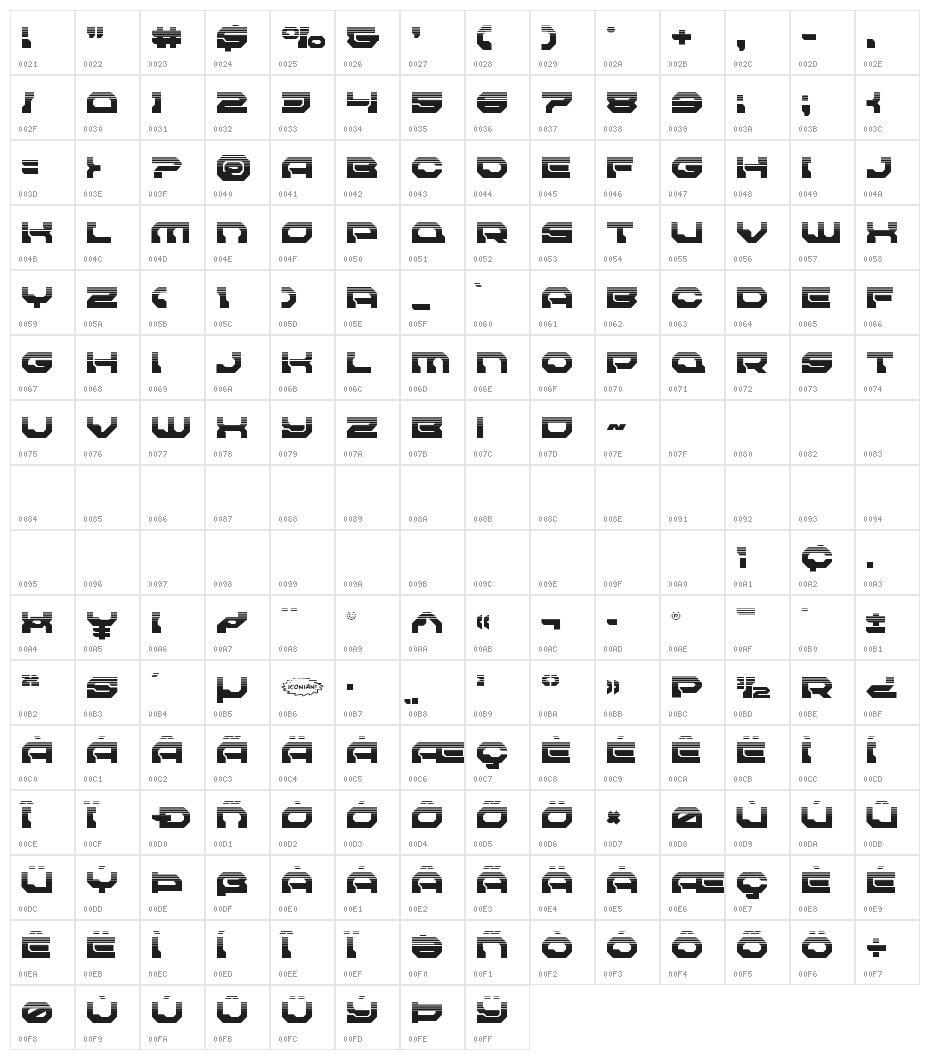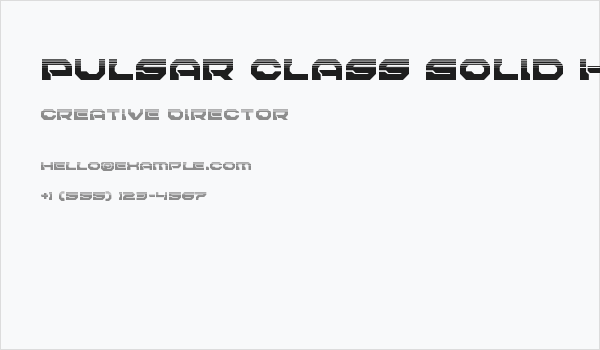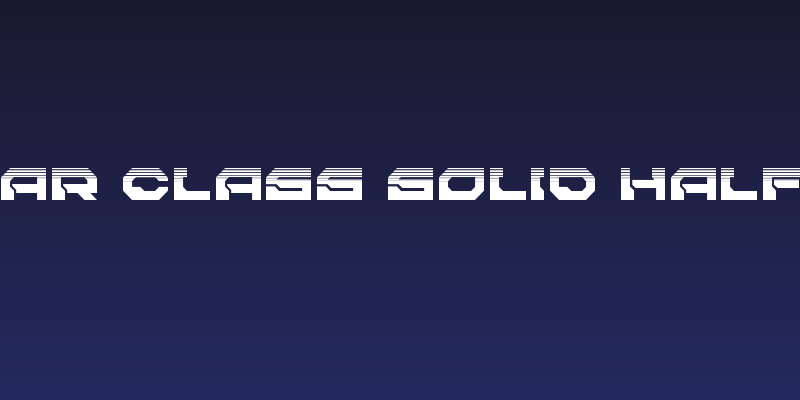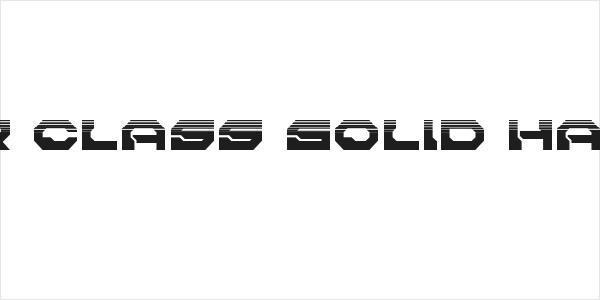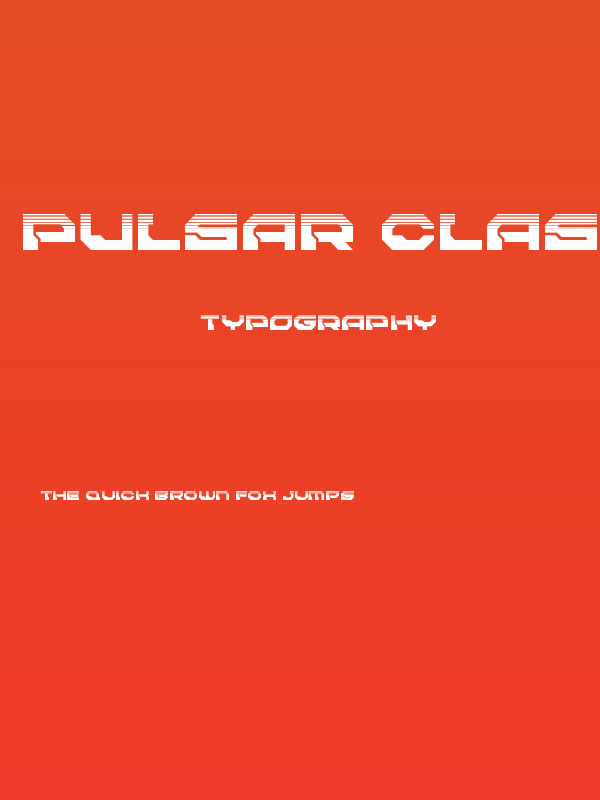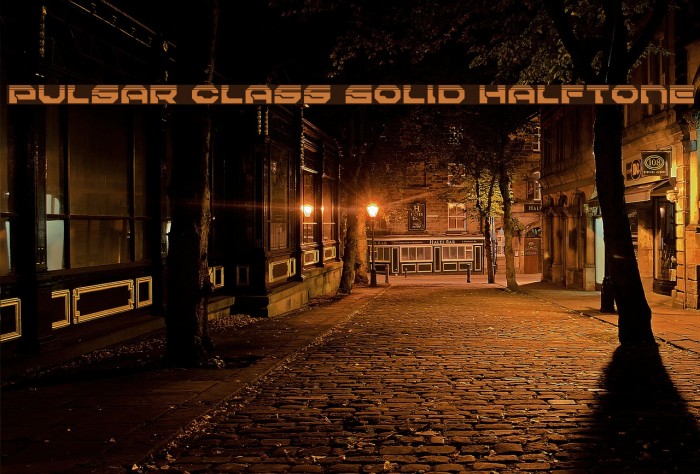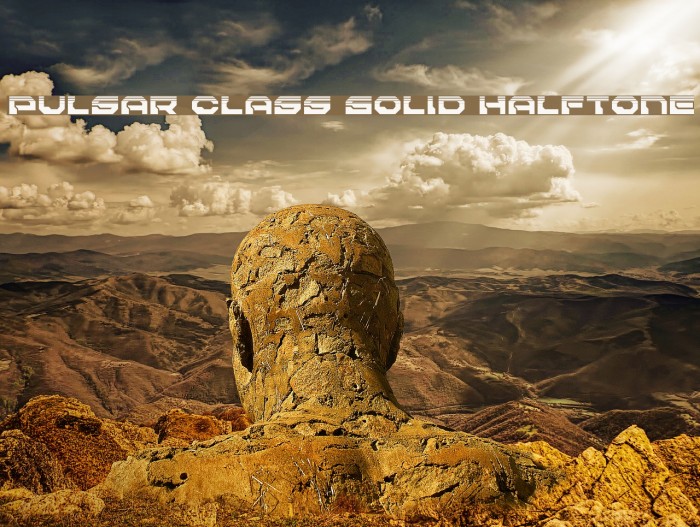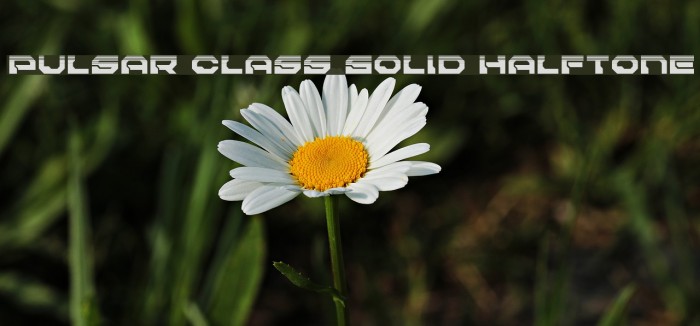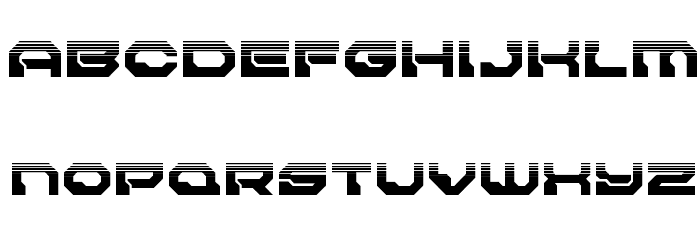
Pulsar Class Solid Halftone Font
Pulsar Class Solid Halftone Description
This font features a bold, futuristic design with a halftone effect that gives it a unique, dynamic appearance. The characters are constructed with solid, geometric shapes and horizontal lines that create a sense of movement and energy. The uppercase and lowercase letters maintain a consistent style, with sharp angles and a strong presence. Numbers and special characters are equally bold, making them stand out. This font is ideal for projects that require a modern, tech-inspired look, such as digital media, gaming, or sci-fi themes.
| Proposed Projects | Ideal for digital media, gaming, sci-fi themes, and tech-inspired branding. |